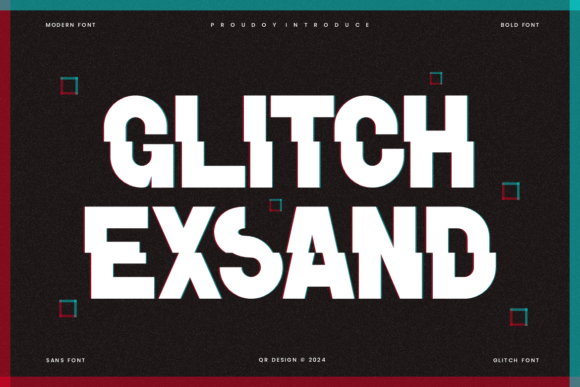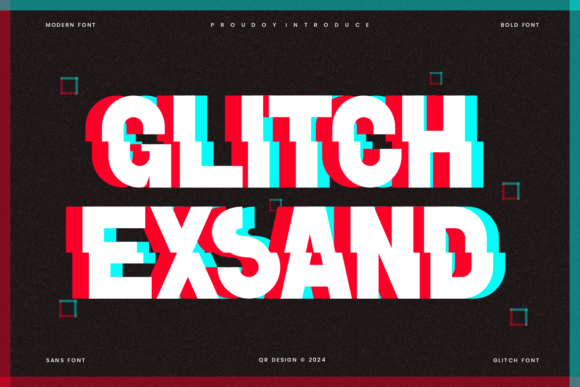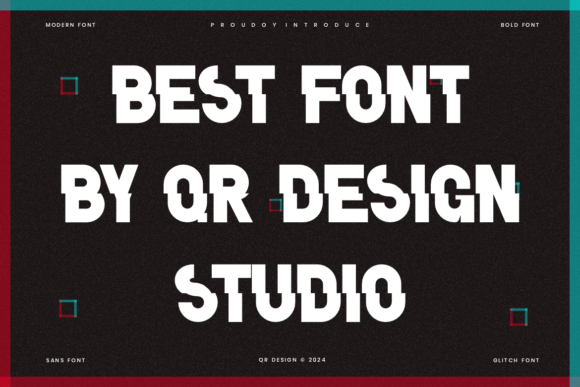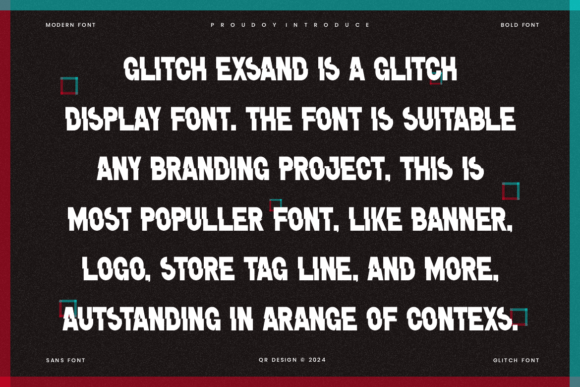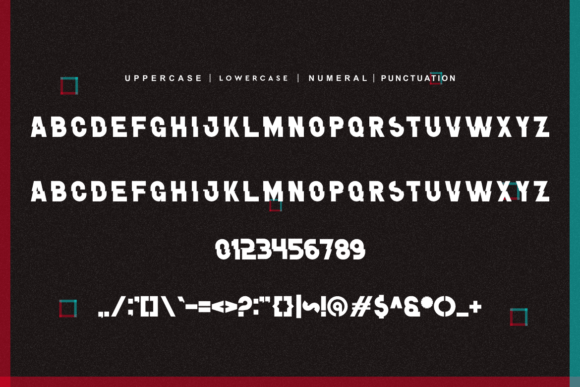
Discover the Perfect Fusion of Futurism and Creativity
As designers, we’ve all been there – staring at a blank canvas, trying to bring an idea to life. And then, it hits us. A spark of inspiration that sets our imagination ablaze. For some, it’s a vibrant color palette, while for others, it’s the perfect font. For those seeking to create a truly futuristic look, the Glitch Exsand Font is the perfect tool to unlock their creativity.
This bold and authentic display font is not just a visual statement – it’s a reflection of your brand’s personality and values. Suitable for any branding project, from logos to sports teams, the Glitch Exsand Font is an outstanding choice that’s sure to leave a lasting impression. Whether you’re a seasoned designer or just starting out, this font is a valuable addition to your toolkit, offering endless possibilities for creative expression.
Key Features of Glitch Exsand Font
- Font Family: Glitch Exsand
- Font Size: 8,000+ glyphs, including letters, numbers, punctuation, and symbols
- Unique Characteristics: Glitch effect, distressed texture, and a futuristic aesthetic, making it ideal for digital art, gaming, and futuristic designs
Glitch Exsand Font Review
I recently had the chance to work with the Glitch Exsand Font, and I must say, it’s a unique addition to any designer’s toolkit. ✨ The font’s distressed, glitchy aesthetic adds a layer of complexity and visual interest to any project. It’s perfect for adding a touch of edginess to futuristic or cyberpunk-inspired designs.
- ✨ Unique and eye-catching aesthetic that’s perfect for adding a touch of grit to designs.
- ✨ Highly customizable, allowing designers to fine-tune the level of distortion and glitchiness to suit their needs.
- ⚠️ Can be overwhelming or distracting if used in excess, so be sure to use it judiciously.
- ⚠️ May not be suitable for projects that require a clean, professional look.
Overall, I think the Glitch Exsand Font is a solid addition to any designer’s toolkit. It’s a great way to add some visual interest and personality to projects, and the level of customization is impressive. Just be sure to use it thoughtfully and in moderation to avoid overwhelming your audience.
Glitch Exsand Font: A Practical Application Guide
Glitch Exsand Font is perfect for creating futuristic, tech-inspired designs, such as: digital art, cyberpunk graphics, and sci-fi illustrations. It’s also great for adding a touch of edginess to corporate identities, product designs, and social media graphics.